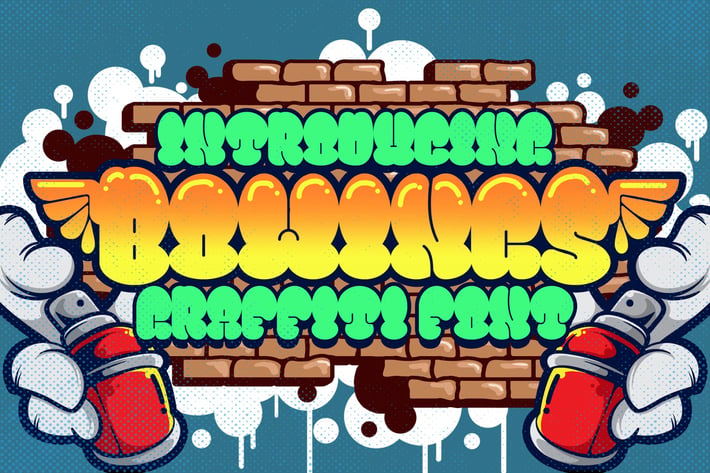
Bowings Graffiti Font
Introducing of our new product the name is Bowings Graffiti Font, Bowings inspired by graffiti style with a fun theme very good for graffity poster, Hip Hop music, kids poster, flyer, childrenbook, cartoon, comic etc